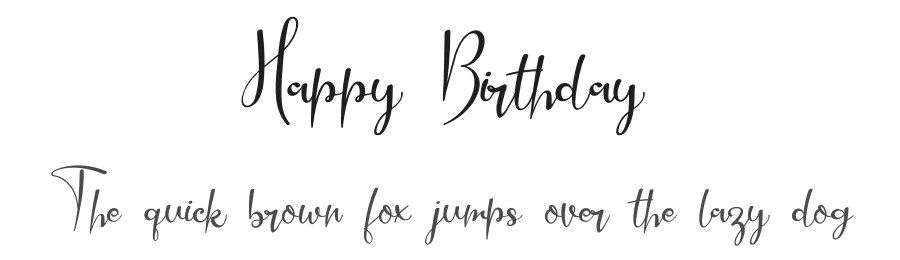
About Hillarie Font
Hillarie Specifications
| Glyph Count | 113 glyphs |
| Designer | Ahmad Afandi |
Hillarie supports 107 languages.
Hillarie Font is a script font that shines as a display or heading face. Pair it with a clean sans-serif or serif font for body text β the contrast creates a clear hierarchy while the two styles stay balanced and easy to read.
Hillarie Font